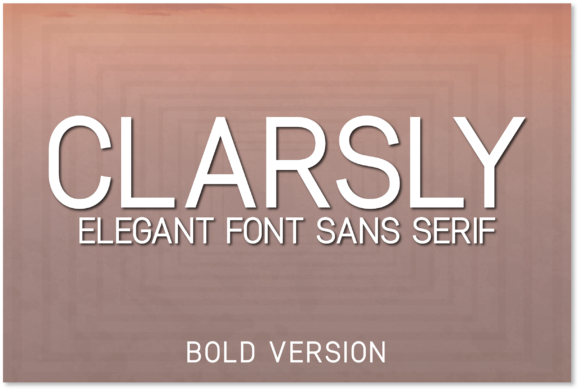
You know that feeling when you’re staring at a blank page, and the words just won’t come? That’s when I reach for my trusty font collection. It’s moments like these that remind me why I love being a designer – the thrill of the hunt for the perfect font, the rush of bringing a vision to life. And that’s exactly what led me to discover Clarsly Bold Font, a game-changer for any design project.
Clarsly Bold Font is more than just a font – it’s a versatile sans serif font that can elevate your body text, headlines, and everything in between. Its minimalist and modern design makes it a timeless choice for designers who want to create a lasting impression. Whether you’re working on a branding project, a brochure, or a website, Clarsly Bold Font is sure to add a touch of sophistication to your design.
Key Features of Clarsly Bold Font
- Font Family: Clarsly Bold is a sans-serif font family designed for clear readability.
- Font Size: Offers a range of font sizes, from 8pt to 72pt, making it suitable for various design projects, from small text to large headings.
- Resolution: Optimized for high-resolution displays, ensuring crisp and clear text rendering on screens with high pixel densities.
- Weight and Style: Features a bold weight with a range of styles, including regular, italic, and bold italic, to provide flexibility in design applications.
- Language Support: Supports a wide range of languages, including Latin, Greek, and Cyrillic scripts, making it a versatile choice for global design projects.
Designer Review: Clarsly Bold Font
Overall, I’d say Clarsly Bold Font is a decent addition to any design toolbox. There are definitely some great features to appreciate.
- ✨ Clarity: This font is exactly what it says it is – clear and bold. The typography is well-executed and easy on the eyes, making it perfect for headings and titles.
- ✨ Versatility: Clarsly Bold Font comes in a range of weights, from light to heavy, giving designers a lot of flexibility when it comes to styling their content.
- ✨ Compatibility: I’ve found that Clarsly Bold Font works seamlessly across various platforms, including web, print, and digital media.
- ⚠️ Limited Expressiveness: While Clarsly Bold Font is great for headings and titles, it can feel a bit one-dimensional when used for body text or other content that requires a bit more flair.
- ⚠️ Not Ideal for Long Texts: The bold weight of the font can make it difficult to read large blocks of text, which may limit its use in certain design applications.
Overall, I think Clarsly Bold Font is a solid choice for designers who need a clear, bold font that gets the job done. While it may not be the most exciting or expressive font out there, it’s reliable and easy to use – and that’s no small thing!
Clarsly Bold Font is ideal for headings, titles, and emphasis in your designs. It’s also great for creating a modern and sleek look in your presentations and documents.
Some common use cases include:
- Creating a bold and eye-catching title for your presentation or document.
- Highlighting important information or key points in your design.
- Adding a touch of sophistication and elegance to
Alternatives to Clarsly Bold Font
Montserrat Bold
Montserrat Bold is a geometric sans-serif font that is perfect for modern designs. It is highly legible and works well in digital and print media. Montserrat Bold is a great alternative to Clarsly Bold Font when you need a bold, modern look.
Comparison to Clarsly Bold Font: Montserrat Bold is more geometric and modern, while Clarsly Bold Font has a more rounded and friendly feel. Montserrat Bold is also more versatile and works well in a wider range of designs.
Open Sans Bold
Open Sans Bold is a clean and modern sans-serif font that is highly legible. It is perfect for body text and works well in digital media. Open Sans Bold is a great alternative to Clarsly Bold Font when you need a clean and modern look.
What is the recommended font weight for Clarsly Bold in digital applications?
In digital applications, we recommend using a font weight of 600 to 700 for Clarsly Bold. This weight provides a clear and bold appearance without overpowering the surrounding text. You can achieve this using the ‘font-weight’ property in CSS, setting it to 600 or 700.